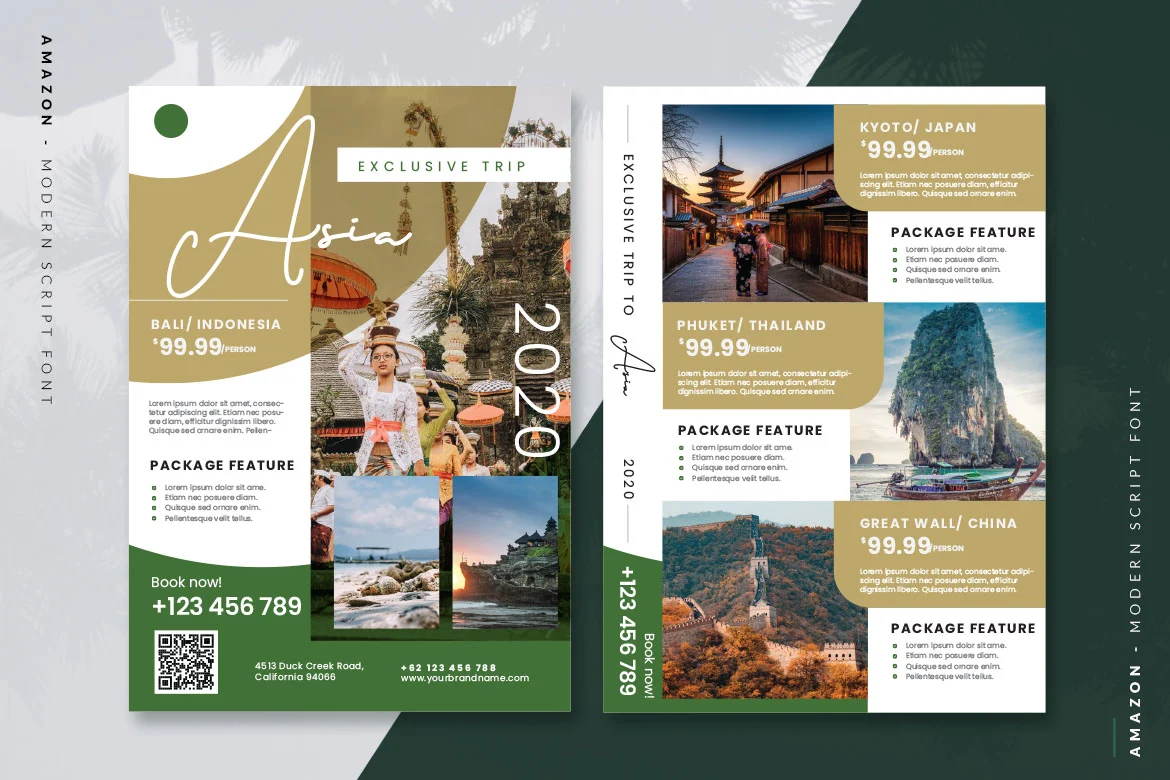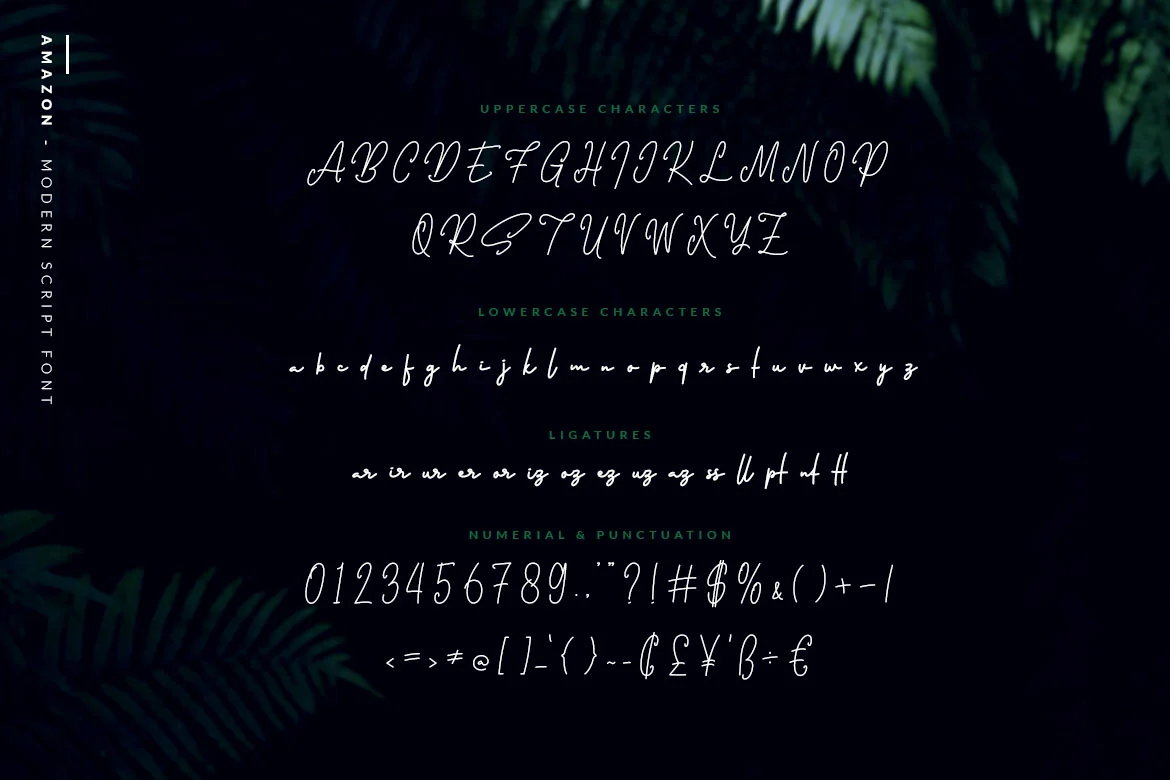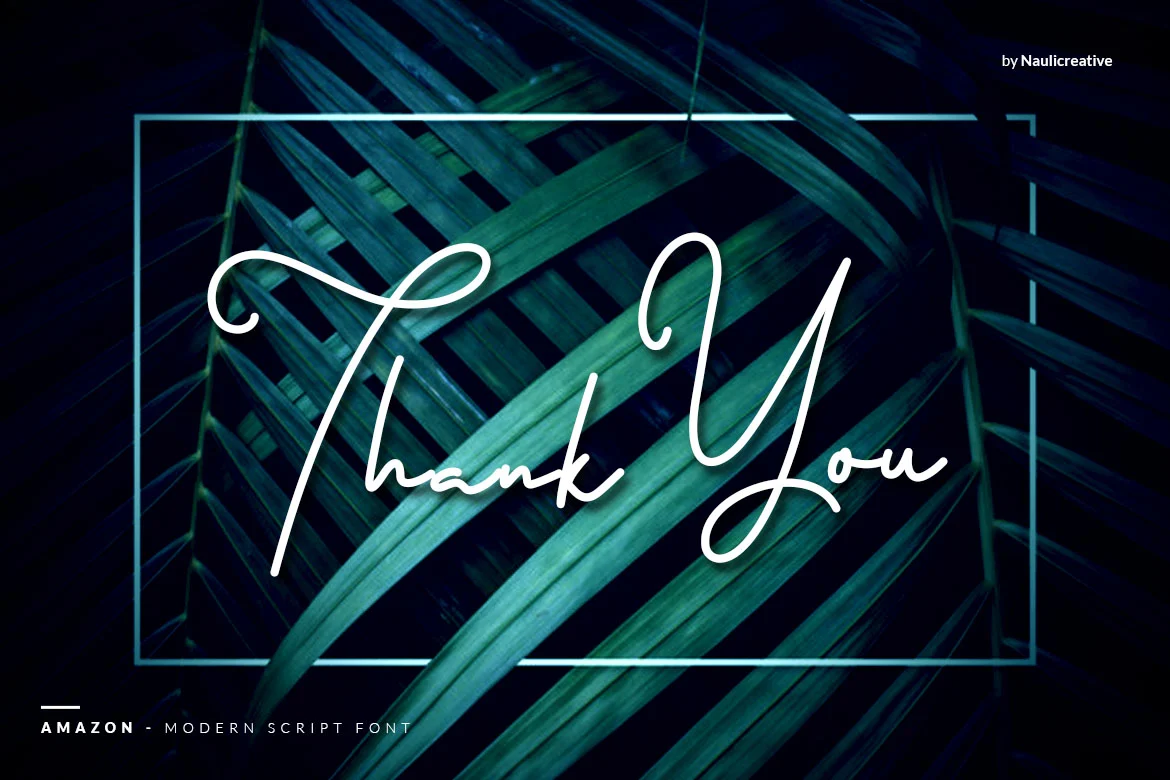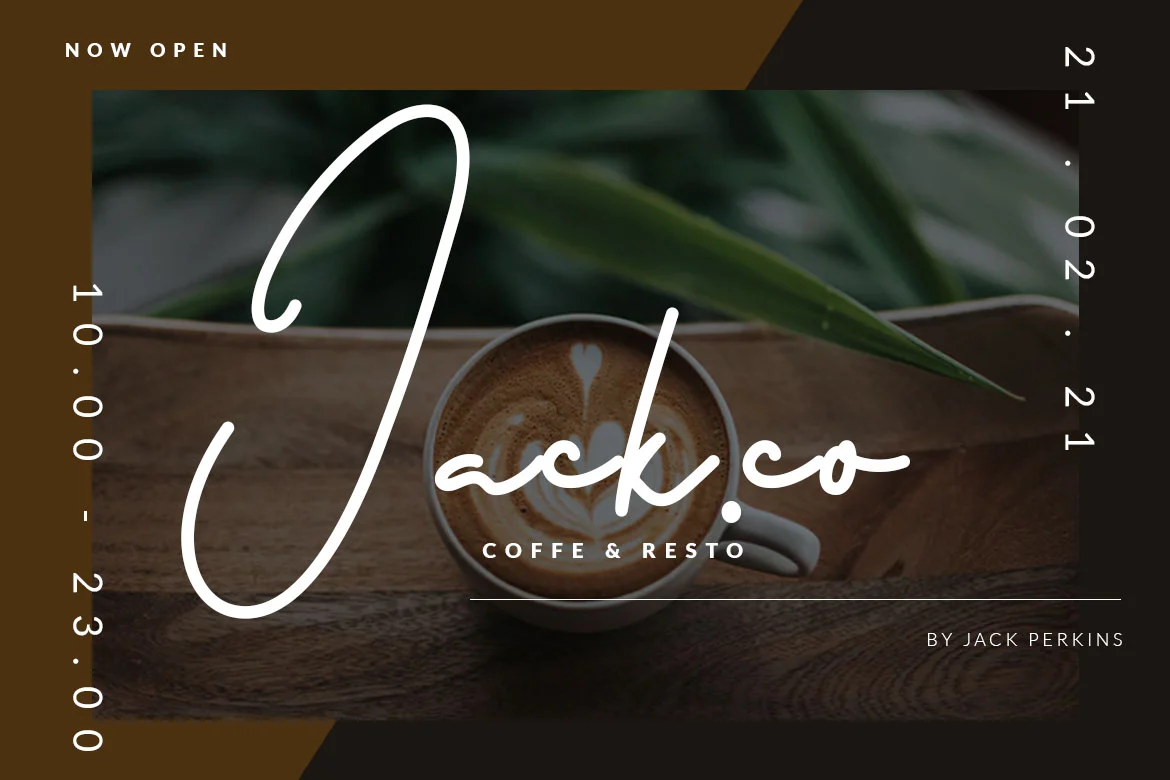
Amazon – Elegant Script Font
Are you looking for an elegant script font? We can help! Try to download our Amazon Elegant Script font. The font is suitable to use for all casual purpose. Try to use it on Wedding invitation, summer occasion, greeting card, poster, postcard, photography, branding, editorial, quote, travelling, signature, and many more to see the best of it :)